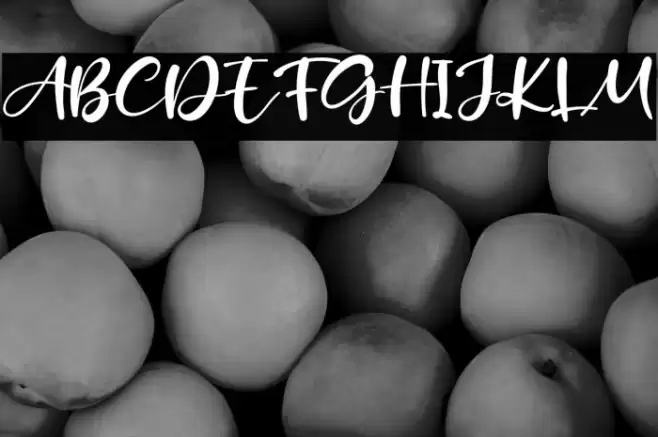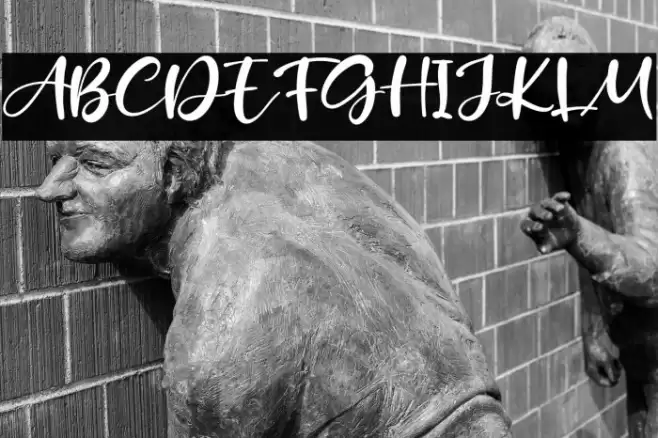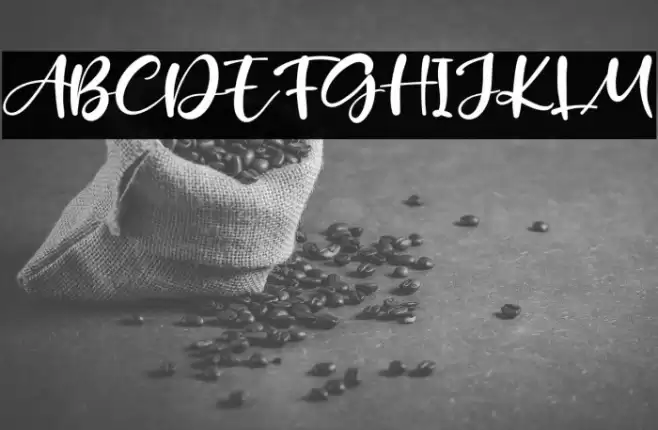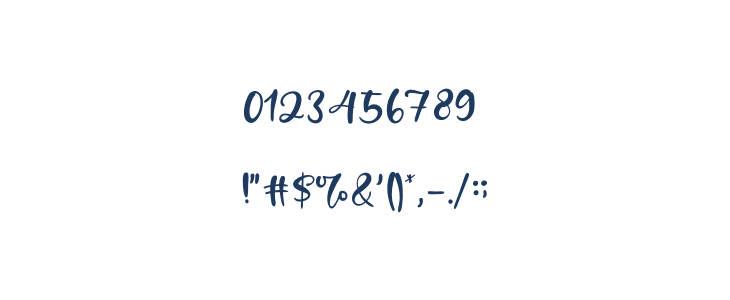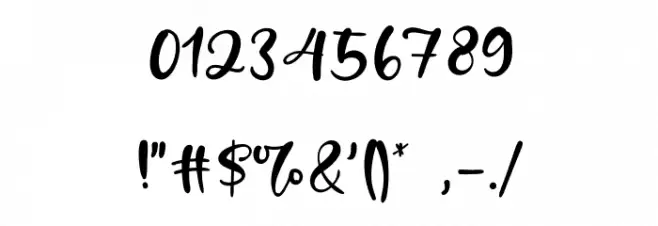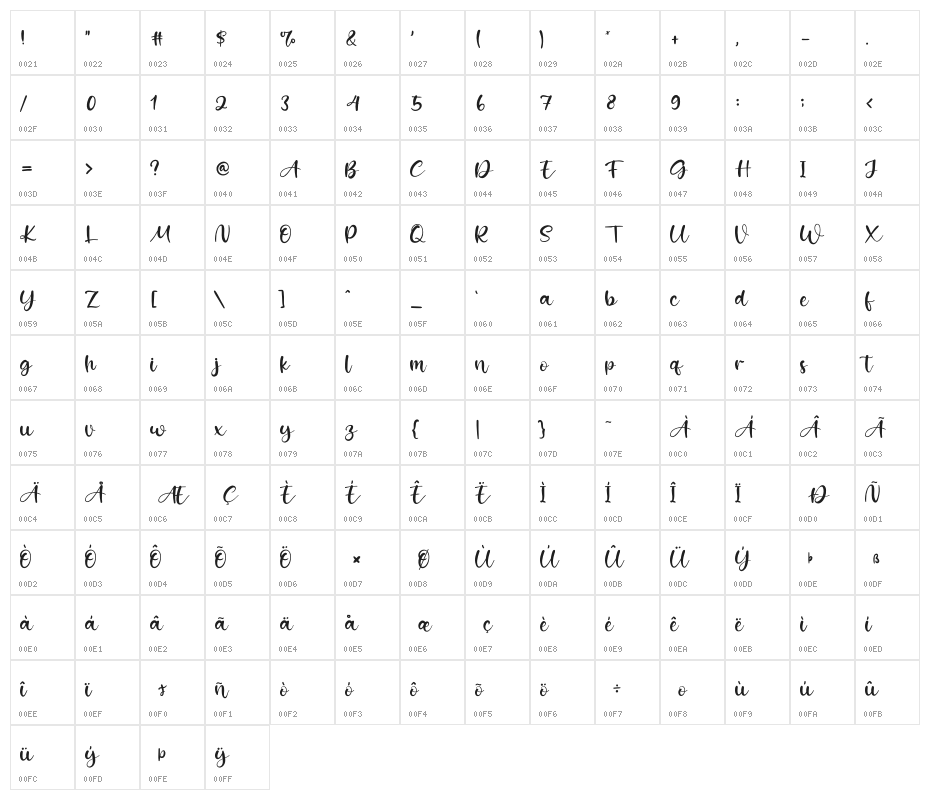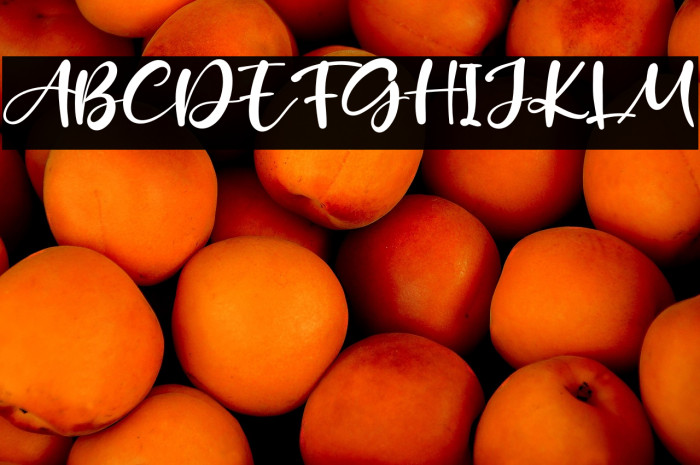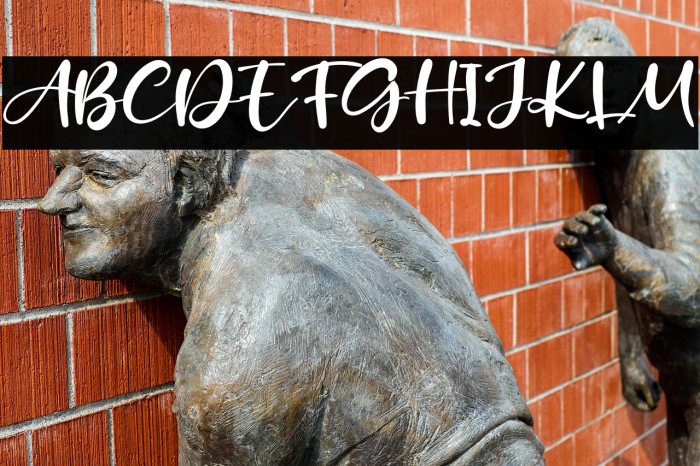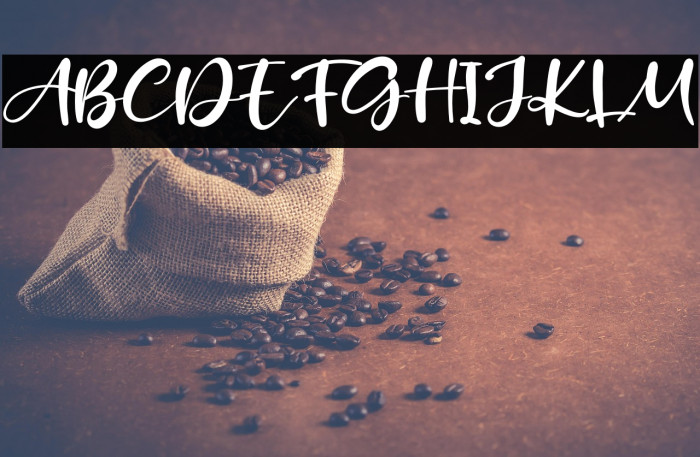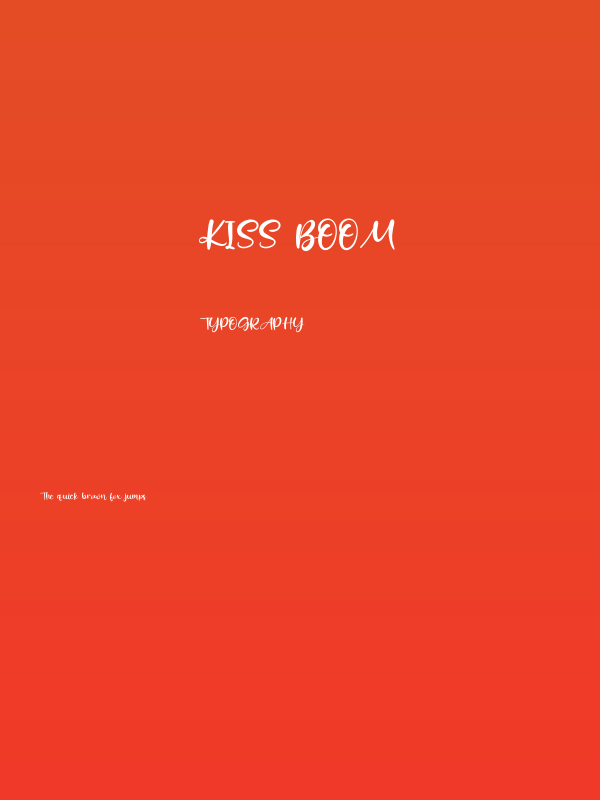
Kiss Boom Font
Kiss Boom Description
This font features a playful and energetic script style with a handwritten appearance. The letters are fluid and connected, giving a sense of movement and dynamism. The uppercase characters are bold and expressive, while the lowercase letters maintain a consistent flow with occasional loops and flourishes. The numbers are rounded and maintain the same lively style as the letters. Special characters are creatively designed to match the overall aesthetic. This font is perfect for projects that require a personal touch or a sense of fun and creativity.
A playful and energetic handwritten script font with fluid, connected letters from Uncategorized fonts.
- Font: Kiss Boom
- Proposed Projects: Ideal for greeting cards, invitations, branding, social media graphics, and playful logos.
- Use Case: Logos, Headlines, Invitations